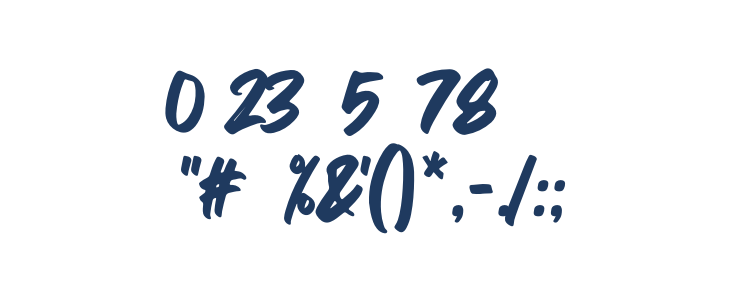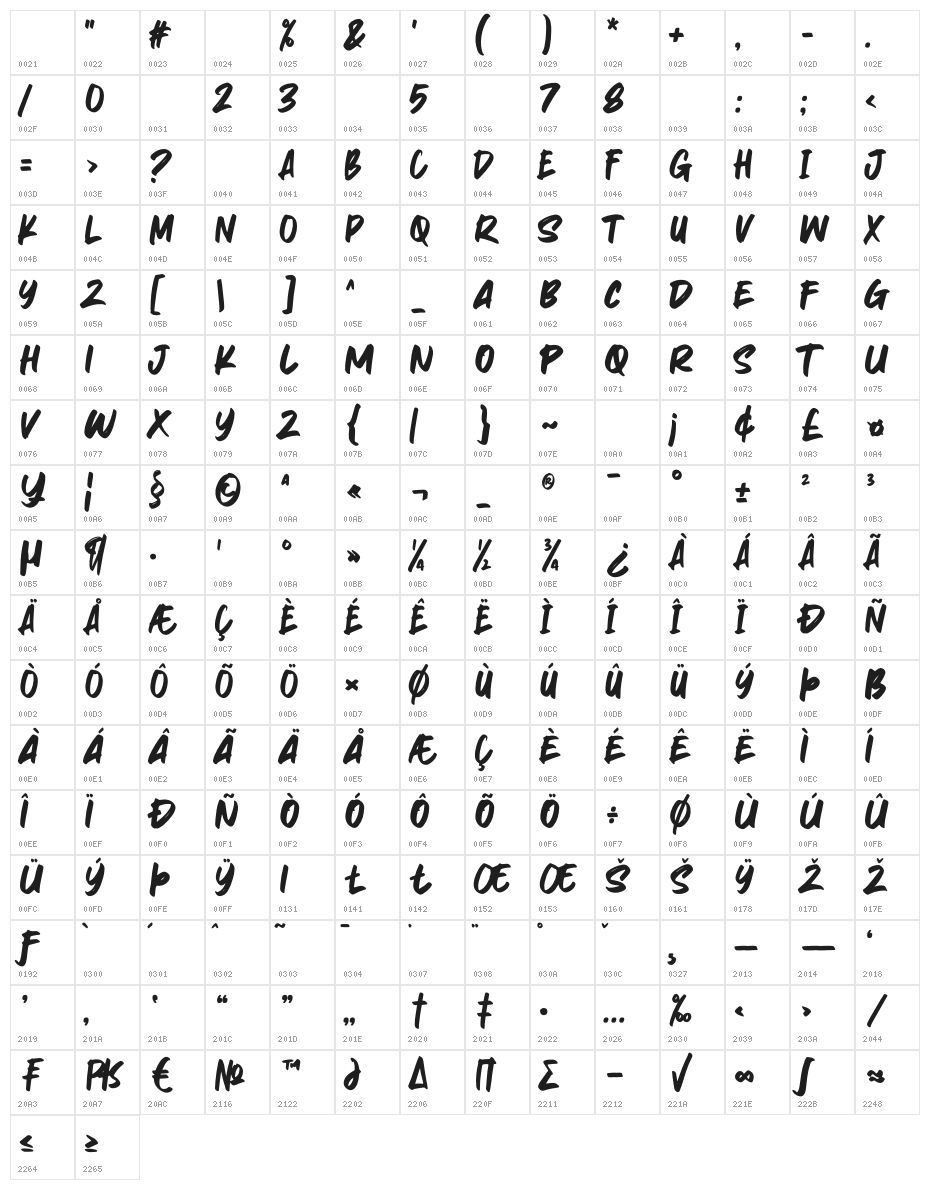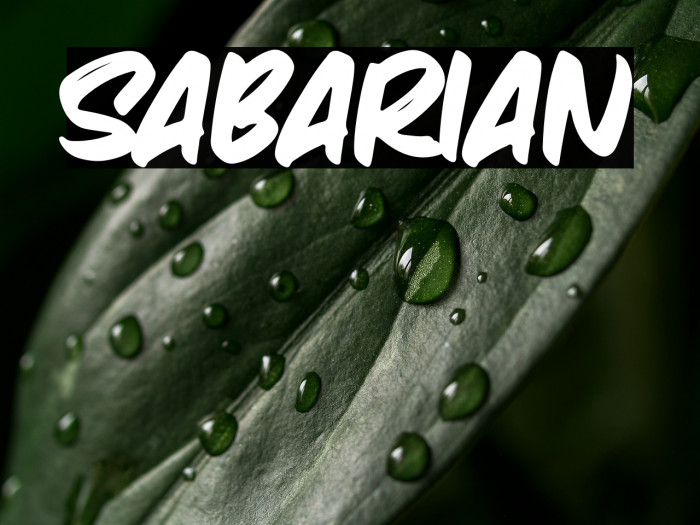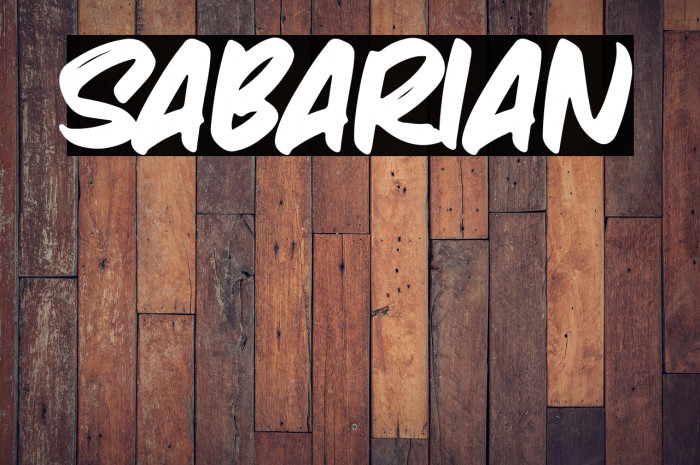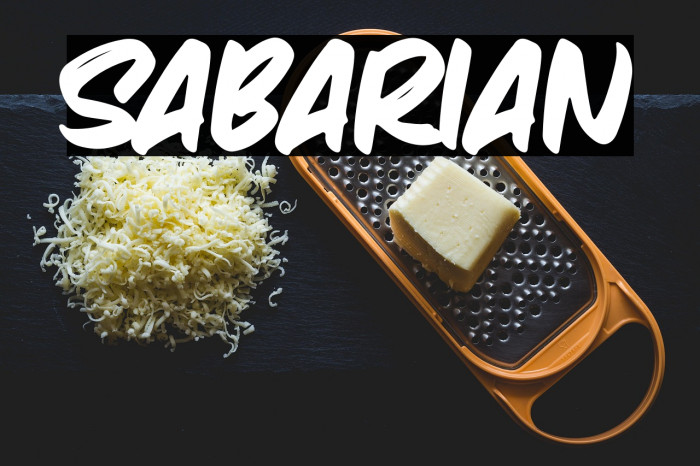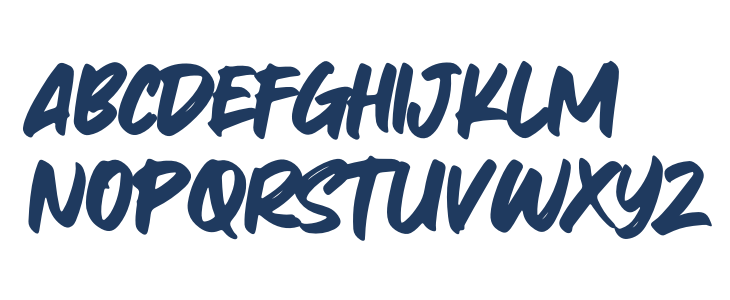
Sabarian Font
Sabarian Description
This font exudes a bold and energetic personality, characterized by its thick, brush-like strokes that give it a dynamic and lively appearance. The letters are crafted with a sense of movement, as if painted with a swift, confident hand. The uppercase and lowercase letters maintain a consistent style, with rounded edges and a slightly slanted orientation, adding to its casual yet assertive feel. The numbers and special characters follow the same aesthetic, ensuring a cohesive look across all glyphs. This font is perfect for projects that require a touch of creativity and flair, making it ideal for artistic and expressive designs.